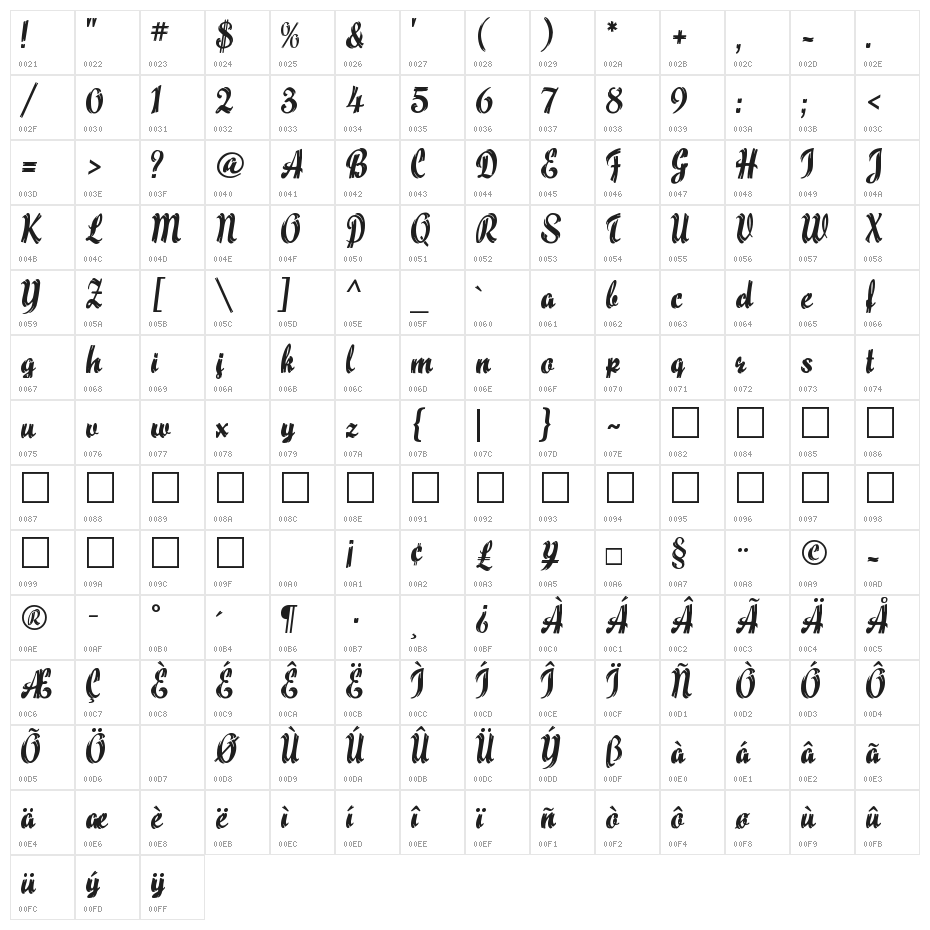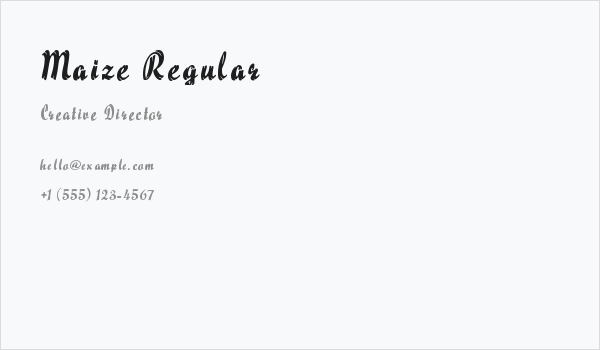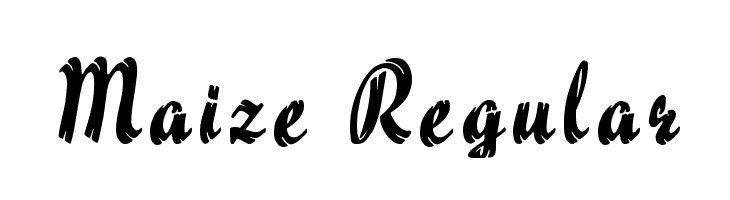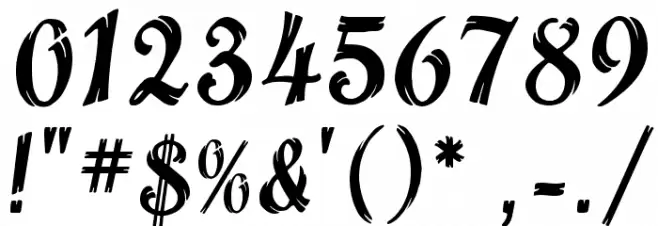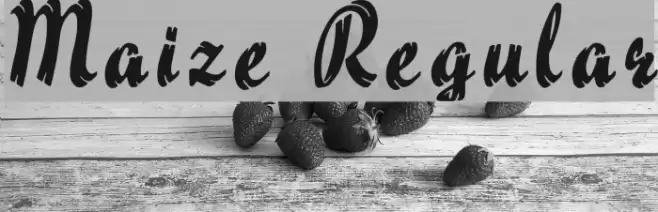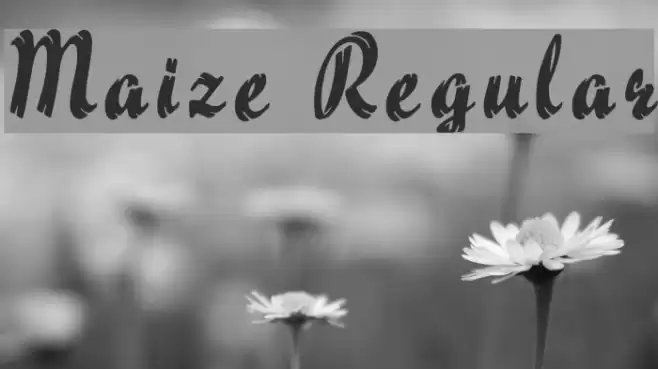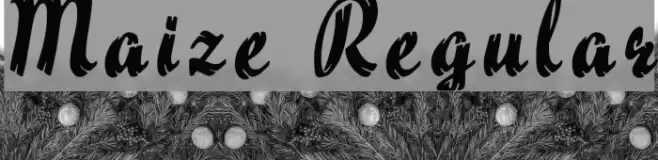
Maize Regular Font
Maize Regular Description
This font exhibits a bold and dynamic script style, characterized by its flowing, cursive letterforms that convey a sense of movement and energy. The strokes are thick and expressive, with a high contrast between the thick and thin parts of the letters, giving it a dramatic appearance. The uppercase letters are particularly ornate, with sweeping curves and flourishes that add a touch of elegance. The lowercase letters maintain a consistent style, ensuring readability while still retaining the decorative flair. The numbers and special characters are designed to match the overall aesthetic, making this font versatile for various creative applications.